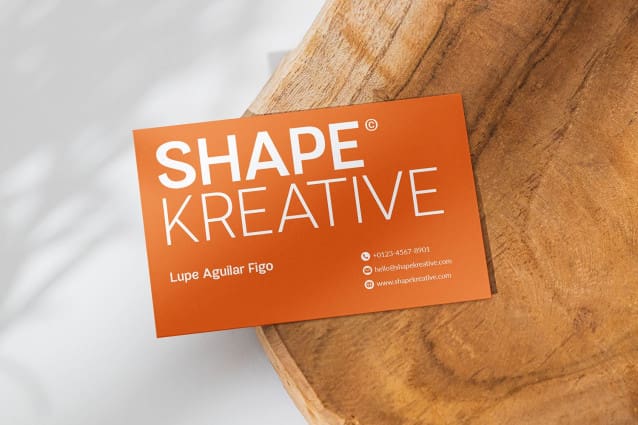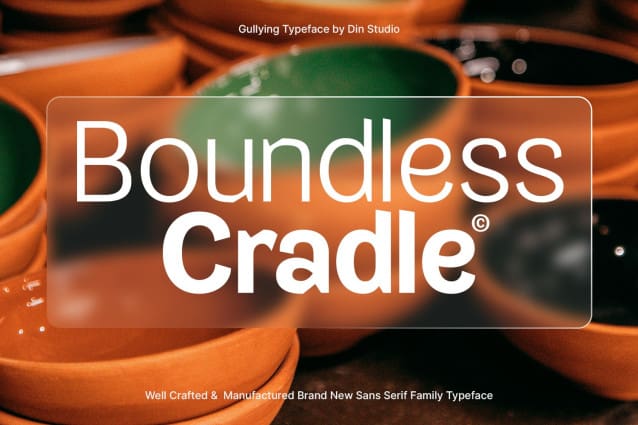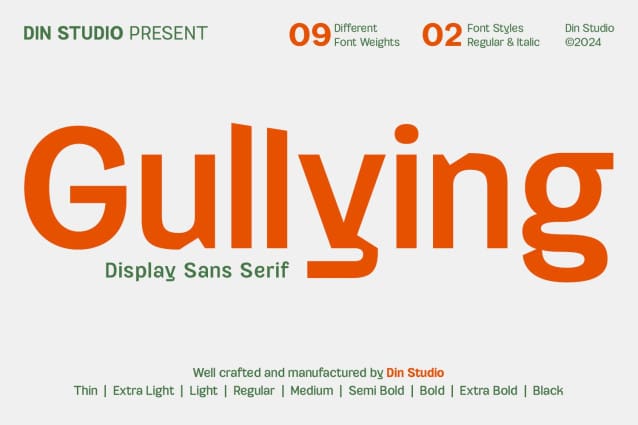
Gullying Font
Gullying Font, a refined sans serif display font family that redefines simplicity and modernity. Designed with 9 versatile weights in both regular and italic styles, Gullying offers a seamless balance of clarity and sophistication. Its clean lines and contemporary shapes are ideal for minimalist designs. Gullying’s adaptability ensures your projects exude a polished, modern aesthetic, capturing attention with its effortless elegance and functional design.